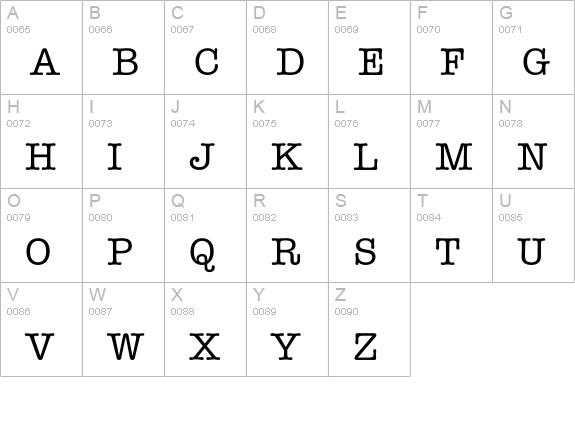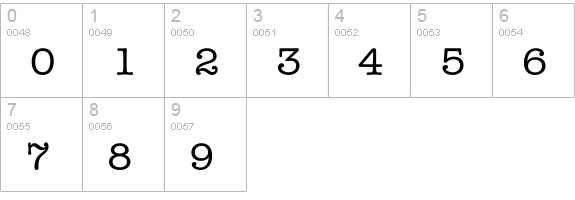
Romtypewriter font is a charming and versatile typeface that harks back to the classic typewriter style. With its clean lines, vintage aesthetic, and distinctive characters, Romtypewriter font is perfect for adding a touch of nostalgia to your designs. Whether you're working on a retro-inspired project or simply want to give your text a unique flair, this font is sure to make a statement. Best of all, Romtypewriter font is available for free download at FontsMarket.com. This means that you can easily access this delightful typeface and start using it in your projects right away. Whether you're a designer, writer, or typewriter enthusiast, Romtypewriter font is a must-have addition to your font collection. Download it today and let your creativity shine with this timeless and stylish font.